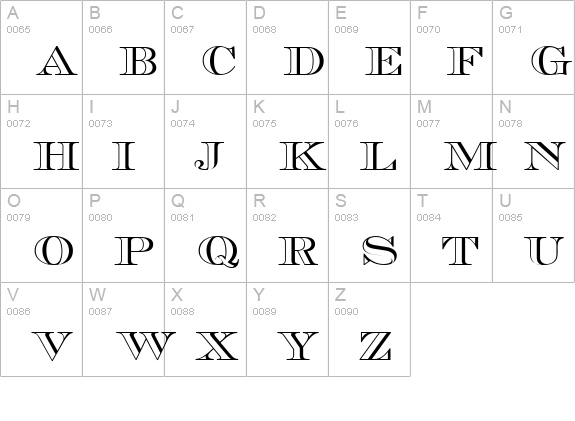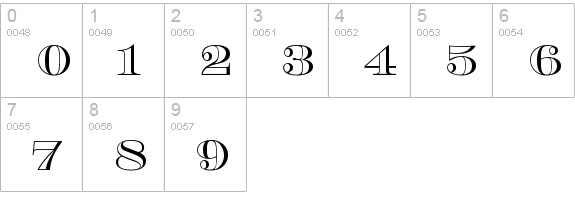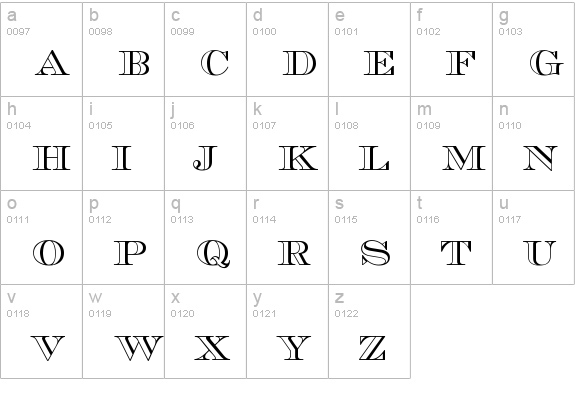
MauriceOutline-Regular Font Details
MauriceOutline-Regular is the standard, neutral variant in the MauriceOutline typeface family \xE2\x80\x94 well suited to general body text, paragraphs, and standard typographic work.
MauriceOutline-Regular is a contemporary and stylish font that exudes a sense of sophistication and elegance. Its sleek lines and clean design make it perfect for a wide range of projects, from branding to graphic design. This versatile font is ideal for creating eye-catching headlines, titles, and logos that demand attention. What sets MauriceOutline-Regular apart is its modern yet timeless appeal, making it a popular choice for designers looking to make a statement. The font's unique character and charm ensure that it stands out from the crowd and leaves a lasting impression on viewers. Best of all, MauriceOutline-Regular is available for free download at FontsMarket.com, making it accessible to everyone who wants to add a touch of class and refinement to their designs. Whether you're working on a personal project or a professional undertaking, this font is sure to elevate your work to the next level. Download MauriceOutline-Regular today and unleash your creativity with this exceptional typeface.